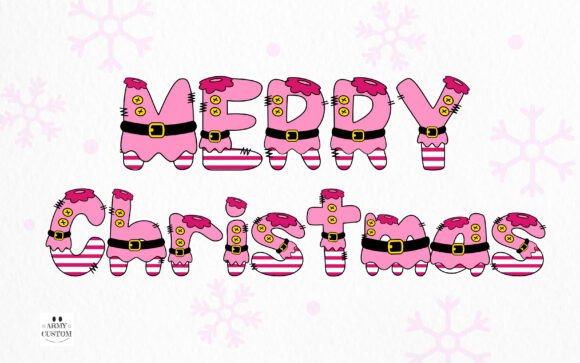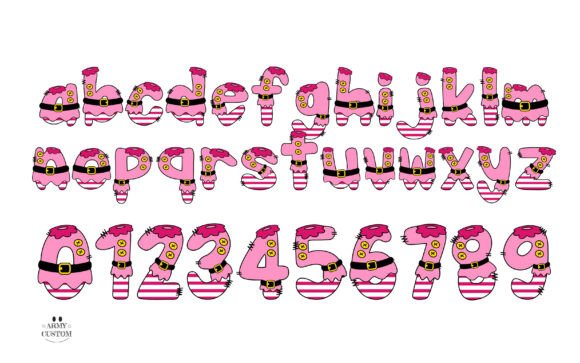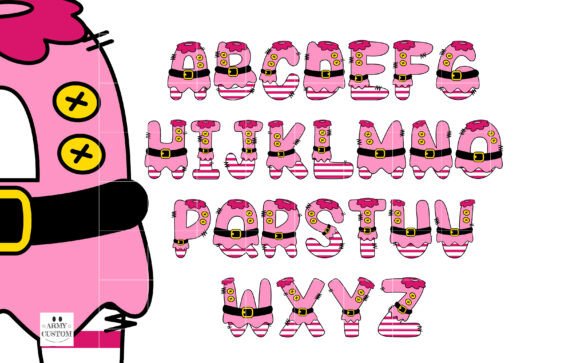
Introducing Elf Squad Pink Font: The Ultimate Holiday Design Companion
Are you looking for a font that can add a dash of fun and fantasy to your holiday designs? Look no further than Elf Squad Pink Font, a vibrant and playful color font that’s perfect for Christmas-themed projects. In this article, we’ll dive into the features and benefits of Elf Squad Pink Edition and explore how it can elevate your holiday designs.
What is Elf Squad Pink Font?
Elf Squad Pink Edition is a fully illustrated color font that brings a joyful visual celebration to every character. This eye-catching font features pink-striped elf boots, belts, and festive details that integrate playful Christmas elements directly into each letterform. The result is a font that’s both whimsical and festive, perfect for holiday party invitations, kids’ crafts, greeting cards, and festive branding.
Key Features of Elf Squad Pink Font
- Fully Illustrated Color Font: Each character in Elf Squad Pink Edition is meticulously illustrated with vibrant colors and playful details, making it a standout from traditional fonts.
- Playful Christmas Elements: The font incorporates festive elements like pink-striped elf boots, belts, and holiday props, adding a sense of fun and fantasy to your designs.
- Matching Vector Extras: The font comes with matching vector extras like elf characters and holiday props, allowing you to complete your Christmas-themed designs with ease.
- Perfect for Print and Digital Use: Elf Squad Pink Edition is designed for both print and digital use, making it ideal for a wide range of applications, from holiday party invitations to festive branding.
Who is Elf Squad Pink Font for?
Elf Squad Pink Edition is perfect for designers, crafters, and DIY enthusiasts who want to add a touch of magic to their holiday designs. Whether you’re creating:
- Holiday party invitations
- Kids’ crafts and activities
- Festive branding and packaging
Elf Squad Pink Edition is the perfect companion to help you create visually stunning and engaging designs.
Benefits of Using Elf Squad Pink Font
- Adds a Touch of Whimsy: Elf Squad Pink Edition brings a playful and imaginative touch to your designs, making them stand out from the crowd.
- Saves Time: With its matching vector extras and easy-to-use font, Elf Squad Pink Edition saves you time and effort in creating festive designs.
- Enhances Creativity: The font’s unique and vibrant design elements inspire creativity and encourage experimentation in your holiday designs.
- Experiment with Different Sizes: Try using Elf Squad Pink Edition in different sizes to see how the font’s details and illustrations scale.
- Combine with Other Fonts: Pair Elf Squad Pink Edition with other fonts to create unique and visually interesting typography.
- Use with Vector Extras: Take advantage of the matching vector extras to add an extra layer of festivity to your designs.
Elf Squad Pink Edition is a unique and engaging color font that’s perfect for holiday designs. With its playful and festive elements, this font adds a touch of whimsy and fantasy to any project. Whether you’re a designer, crafter, or DIY enthusiast, Elf Squad Pink Edition is a must-have companion for creating visually stunning and engaging holiday designs.